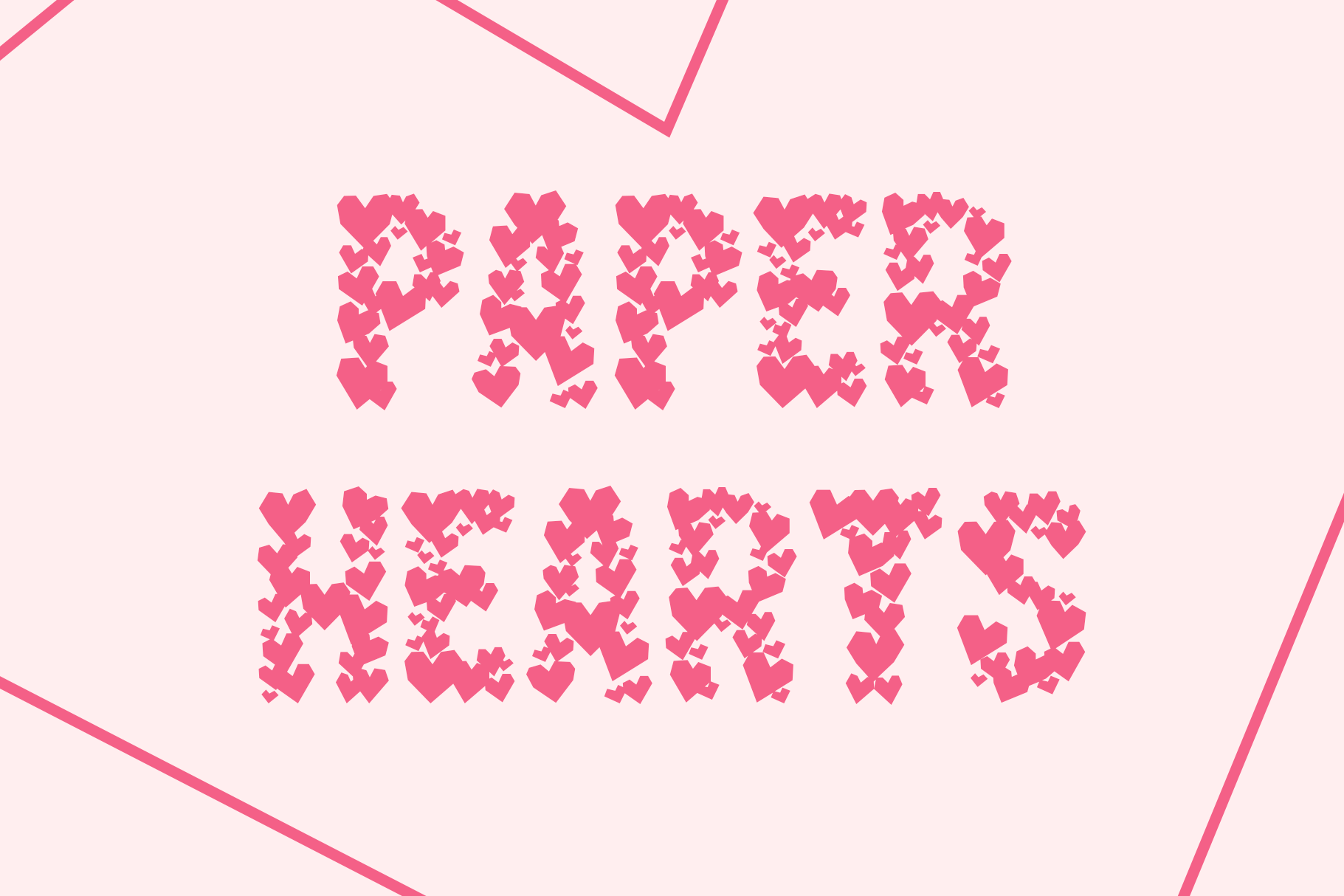
Paper Hearts Font
Paper Hearts was designed to mimic childhood construction paper creations. It's perfect for a homemade Valentine's Day feel without the safety scissors and glue sticks.
The font was recently updated to included Outline, Color, and Outline Color variations. Color and Outline Color are OpenType SVG files and, while the festive colors should appear in recent Adobe products, the format may not be supported across all web browsers.